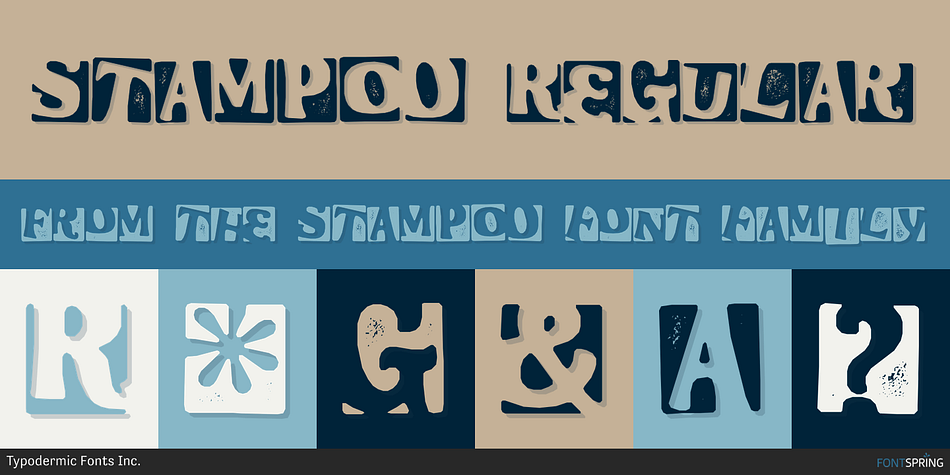
Stampoo Regular
Stampoo is a grunge font published by Typodermic Fonts Inc.
Welcome to the world of Stampoo, where creativity meets typography. This isn’t your run-of-the-mill typeface—this is a joyful, wild, and curvaceous font that is guaranteed to make your words pop.
When you use Stampoo, your message will be transformed from a mundane statement to a laid-back expression of kindness. It’s like giving your words a warm hug, but without the awkwardness of physical contact. The rubber stamp letterforms are as natural as the grass under your feet, and the bespoke pairs will make your text flow like a mountain stream.
But Stampoo isn’t just a pretty face. Oh no! This font is a true workhorse, designed to make your life easier. With OpenType ligatures, those tricky letter combinations are replaced by bespoke pairs, making your text look more natural and realistic. It’s like having a personal typographer at your fingertips, without the exorbitant hourly rate.
So why settle for boring, run-of-the-mill typography when you can have the natural, creative, and joyful letterforms of Stampoo? Add a touch of whimsy to your next project, and let Stampoo do the heavy lifting. Your audience will thank you for it.